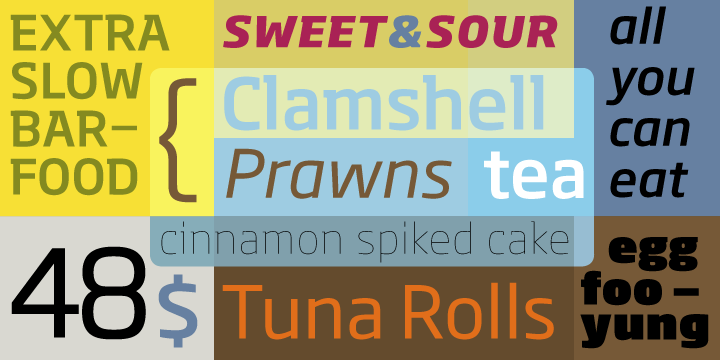
Soho Gothic
This is a highly versatile, extensive, and customizable font. The multi-lingual Soho Gothic font has it all that one looks for in a modern yet ornamental font. The Soho® Gothic collection of typefaces is the most recent episode in the Soho design project. It has the same proportions as Soho, its slab serif sibling. This … Read more